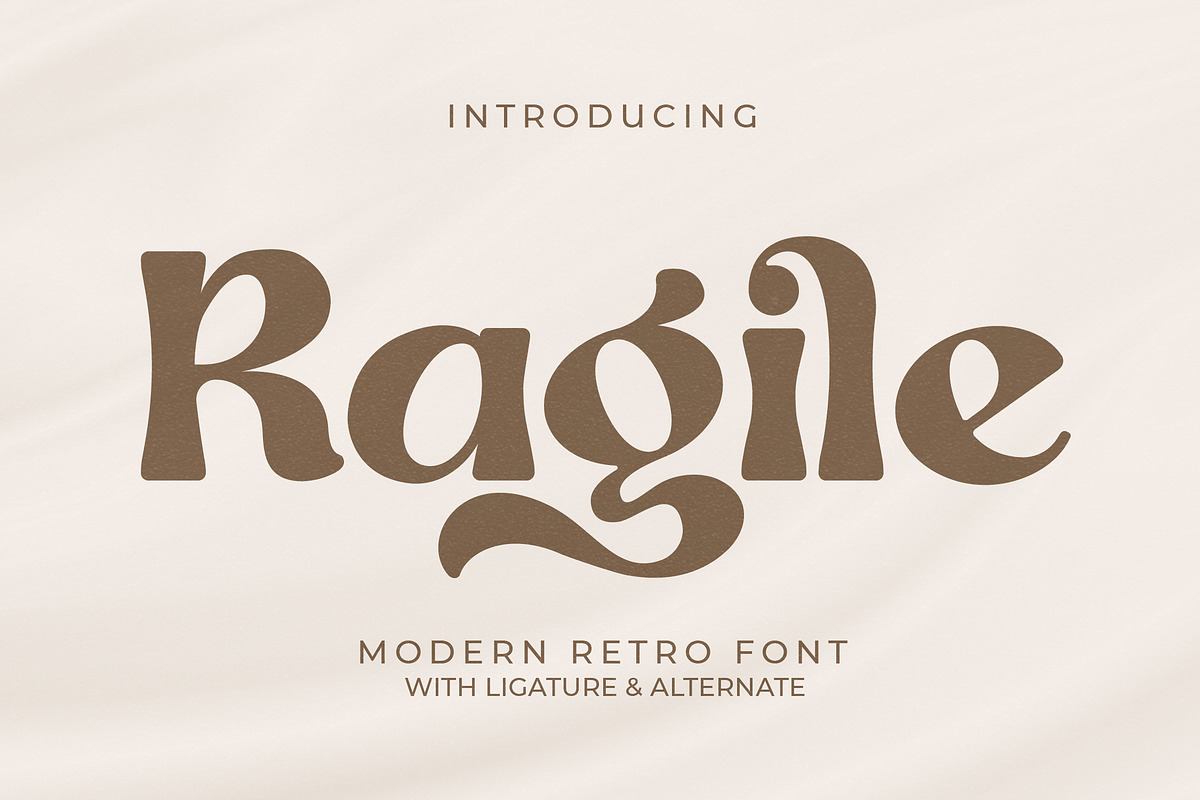
Ragile Modern Retro Display Font Free Download is a stylish and expressive typeface that fuses vintage charm with a modern twist. With its bold curves, funky flair, and nostalgic character, Ragile is perfect for posters, headlines, logos, apparel, and branding that craves a groovy, eye-catching vibe.
Whether you're designing for a throwback event or building a bold brand with personality, Ragile brings playful sophistication to every layout. It’s the ultimate display font for making a stylish, vintage-inspired statement that still feels fresh and current.